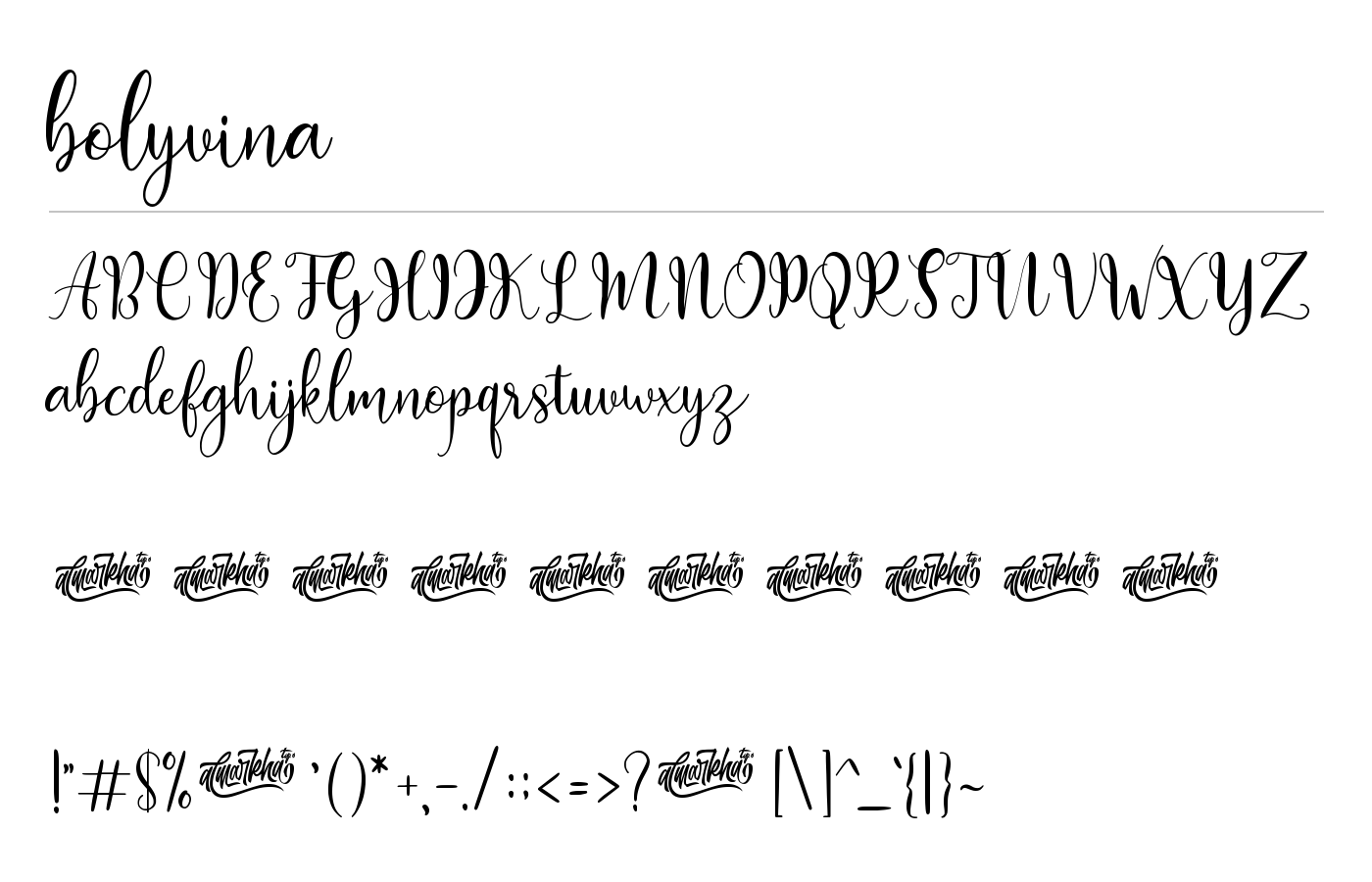
Bolyvina is a delicate script font with elegant, flowing letterforms that combine a handwritten charm with graceful sophistication. Its thin strokes and decorative swashes give it a refined, artistic feel, making it perfect for wedding invitations, branding, and any design that seeks a stylish, personal touch. This font works beautifully in headlines or logos where a touch of elegance and femininity is desired.
bolyvina Font
About bolyvina Font
| Font family | bolyvina Font |
| Designer | Almarkhatype 2020 Abdul malik |